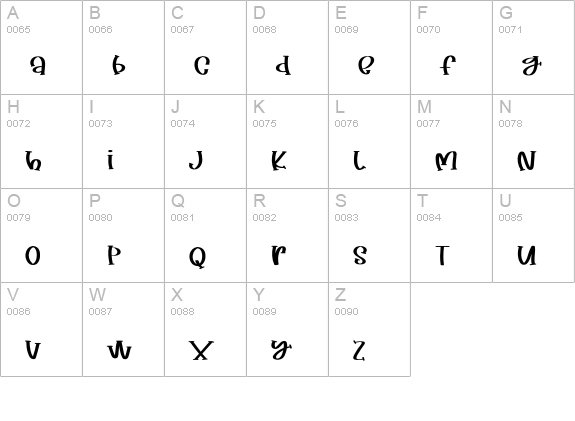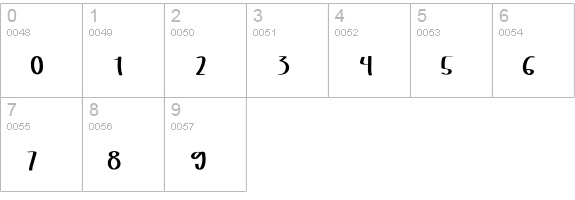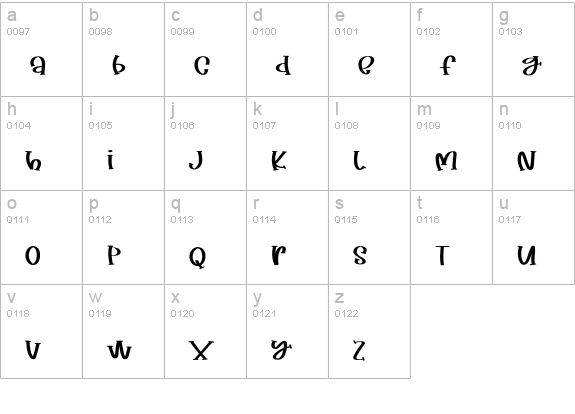
Tasty Food Font Font Details
Tasty Food Font is a free for personal use font in the Script > Handwritten category, designed by Fontles. It has been downloaded 14 times and is available for Windows, Mac and Linux.
Introducing the delectable Tasty Food Font, a whimsical and playful typeface that brings a delightful touch to any design project. This font is perfect for food-related creations, such as menus, recipe cards, food blogs, and more. With its charming hand-drawn style and quirky letterforms, Tasty Food Font adds a unique flavor to your designs.